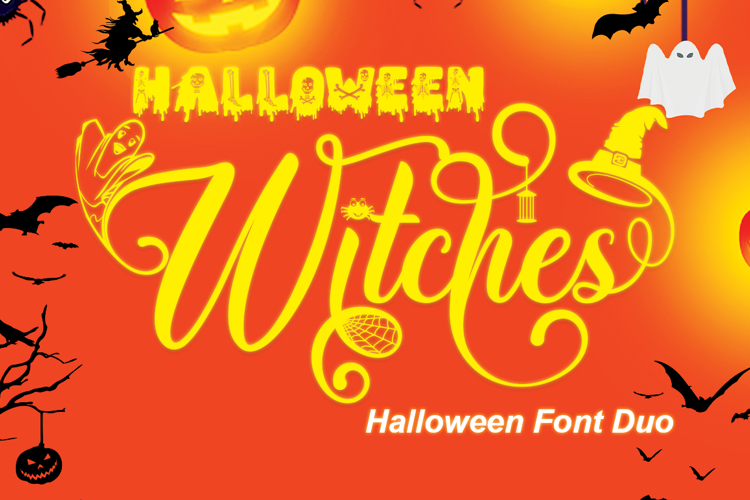
Halloween Witches Script Font
About Halloween Witches Script Font
Script Style
Halloween Witches is a fun duo font (display and script) with a scary and cute Halloween theme. Masterfully designed to become a true favorite, this font has the potential to bring each of your creative ideas to the highest level.